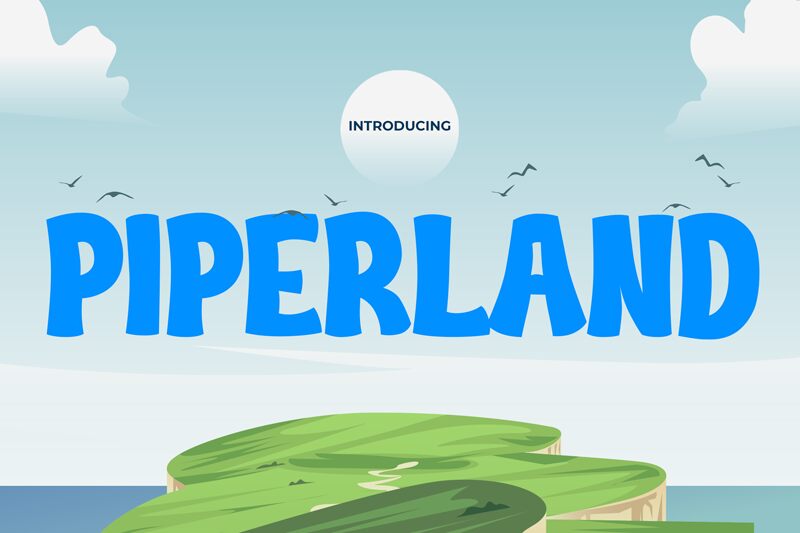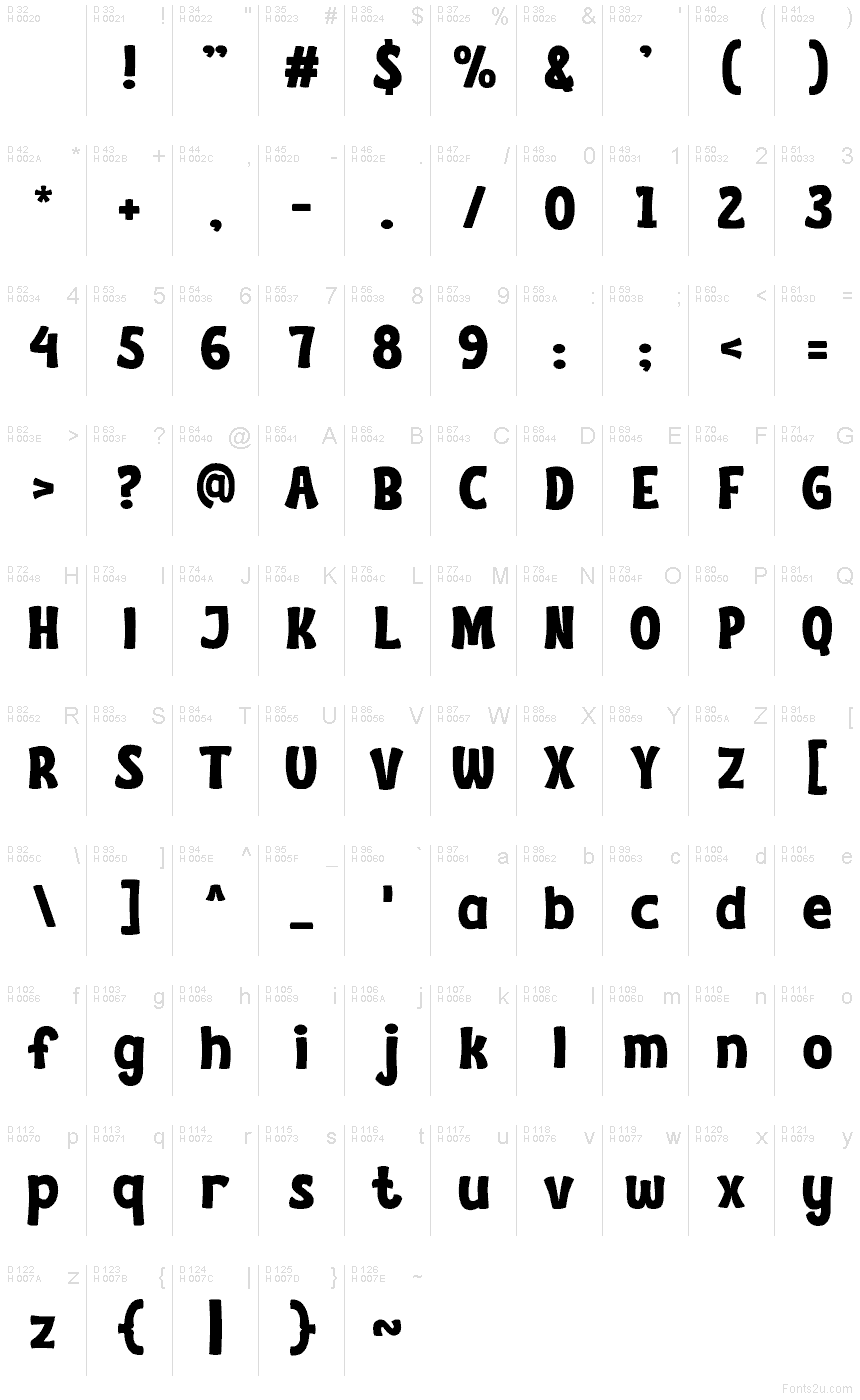
PIPERLAND
Piperland font by Pinisiart is a free cartoon display font that lands with a cheerful thump. Its chunky, slightly wobbly letters feel hand-cut and friendly, with tall, bouncy forms that pack big energy without getting messy. The strokes swell and pinch just enough to keep words lively, giving titles a soft, inky punch that reads fast and feels fun.
Using Piperland, you can brighten kids’ book covers, birthday invites, toy packaging, snack branding, game logos, classroom posters, and YouTube thumbnails. This free font shines at large sizes where its playful rhythm can breathe. Pair it with a simple rounded sans for body copy, and add generous letter spacing for extra bounce.